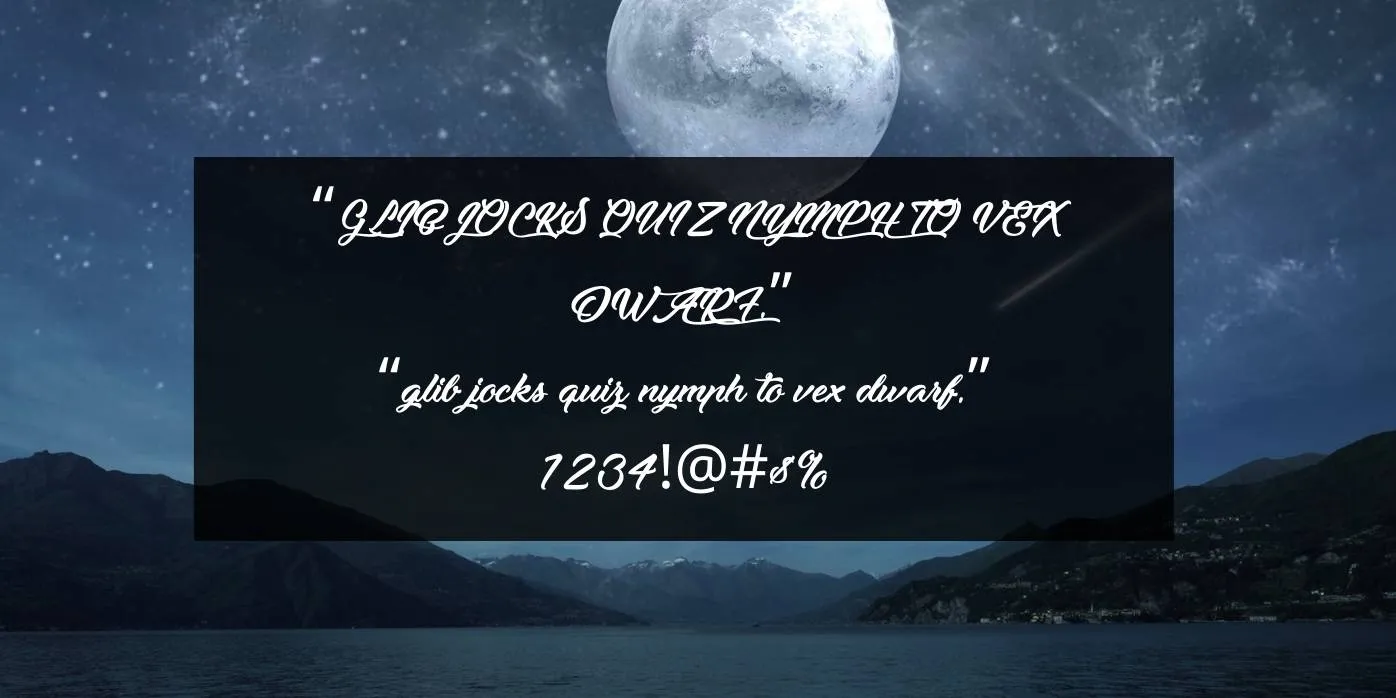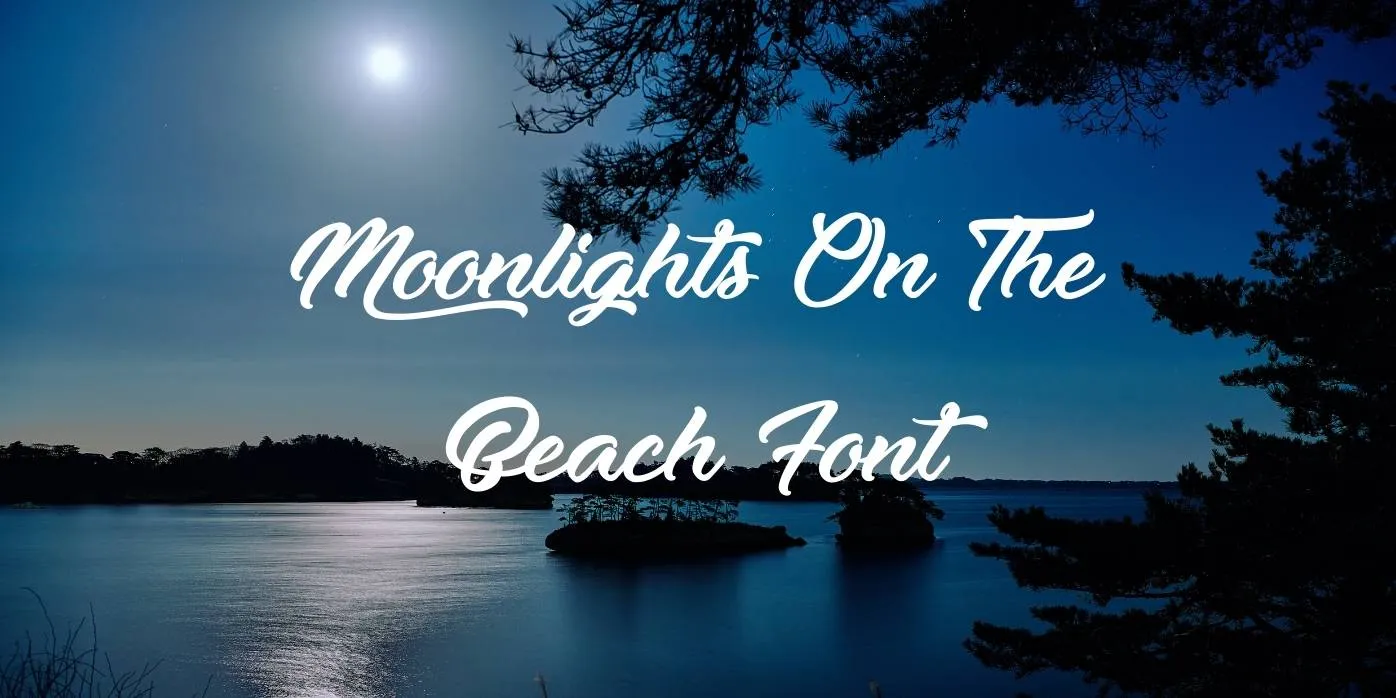
Moonlights on the Beach Font
In this post, we present a new famous typeface that is known by the name Moonlights on the Beach Font. This stylish font family was developed by Thomas Boucherie. This typeface belongs to the Calligraphy typeface. This stunning font was designed for the first time in 2001.
This stylish font family is available in three different styles including Regular, Bold, and Italic. All of these styles contain 256 characters. This Moonlights on the Beach Typeface supports many international languages. You can use this beautiful typeface for various purposes.